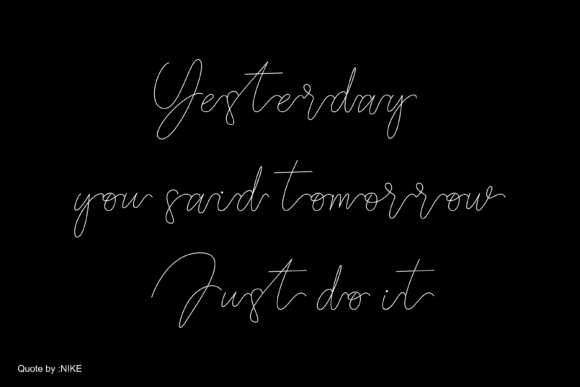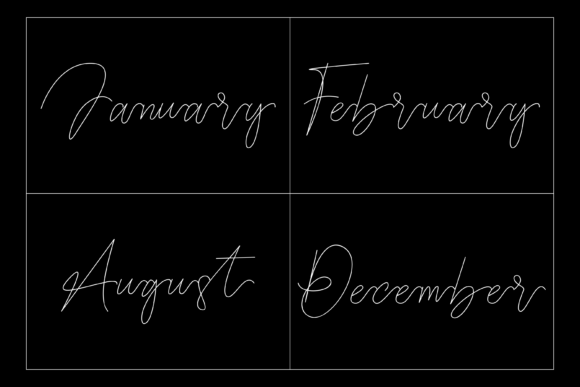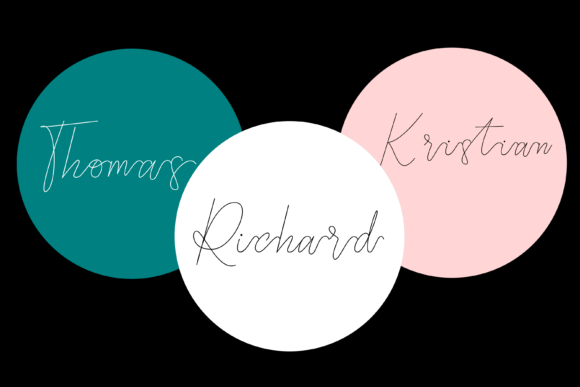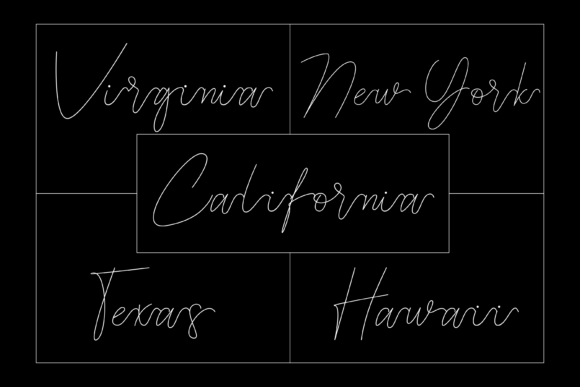
Bastians Font: Elevate Your Designs with Elegance and Class
In the world of typography, fonts play a crucial role in conveying the tone and aesthetic of a design. For those seeking a beautiful and refreshing look, Bastians Font is an excellent choice. This thin lettered and delicate script font exudes elegance and class, making it perfect for designers and crafters who want to add a touch of sophistication to their work.
The Characteristics of Bastians Font
Bastians Font is a script font that boasts a unique and refined style. Its thin letters and delicate curves give it a light and airy feel, making it ideal for designs that require a touch of elegance. The font’s classic and timeless look ensures that it will never go out of style, and its versatility allows it to be used in a wide range of design applications.
Crafting Elegance: The Story Behind Bastians Font
Bastians Font was crafted with the designer in mind. The creators of this beautiful font understood the need for a typeface that could add a touch of sophistication to any design. They carefully crafted each letter to ensure that it was not only aesthetically pleasing but also highly legible. The result is a font that is both elegant and functional.
Uses of Bastians Font
Bastians Font is a versatile typeface that can be used in a variety of design applications. Some of the most popular uses for this font include:
- Wedding and Event Design: The elegant and refined style of Bastians Font makes it perfect for wedding invitations, event branding, and other related design materials.
- Logos and Branding: The font’s classic and timeless look makes it an excellent choice for logos and branding materials that require a touch of sophistication.
- Packaging Design: Bastians Font can add a touch of elegance to packaging design, making it perfect for luxury brands and high-end products.
- Digital Design: The font’s legibility and classic style make it suitable for digital design applications such as website headers, social media graphics, and more.
Why Choose Bastians Font?
There are many reasons why designers and crafters choose Bastians Font for their projects. Some of the benefits of using this font include:
- Elegance and Sophistication: Bastians Font adds a touch of elegance and sophistication to any design.
- Versatility: The font can be used in a wide range of design applications.
- Legibility: The font’s classic style and careful craftsmanship ensure that it is highly legible.
- Unique Style: Bastians Font boasts a unique and refined style that sets it apart from other fonts.
Tips for Using Bastians Font
To get the most out of Bastians Font, here are a few tips to keep in mind:
- Use it sparingly: Bastians Font is a elegant and refined font, so it’s best to use it sparingly to avoid overwhelming the design.
- Pair it with a sans-serif font: Pairing Bastians Font with a sans-serif font can create a beautiful contrast and add visual interest to the design.
- Experiment with colors: The font’s classic style looks great in a variety of colors, so don’t be afraid to experiment and find the perfect hue for your design.
Bastians Font is a beautiful and elegant script font that is perfect for designers and crafters who want to add a touch of sophistication to their work. Its unique and refined style, versatility, and legibility make it an excellent choice for a wide range of design applications. Whether you’re designing a wedding invitation, logo, or packaging material, Bastians Font is sure to elevate your design and leave a lasting impression.